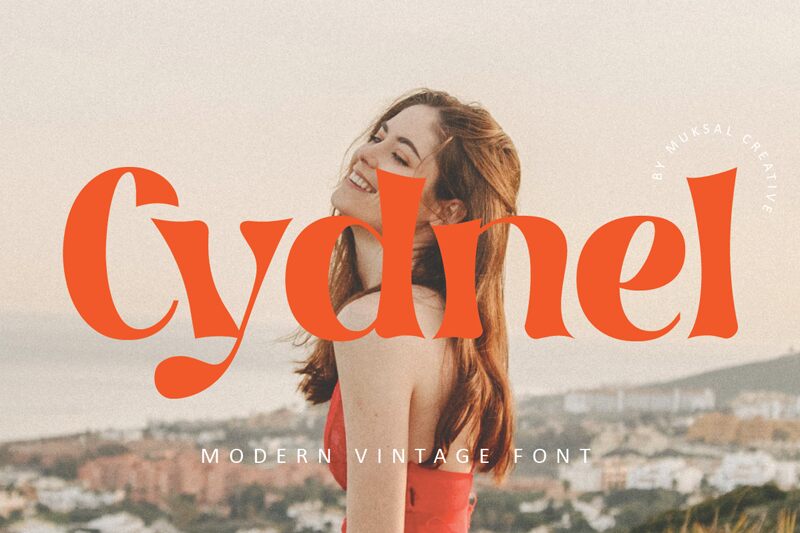
Cydnel font is a retro-inspired typeface created by Muksal Creative, available as a free font. Skillfully combining a sophisticated and modern vintage aesthetic with a contemporary twist, this font has an eye-catching design with a unique artistic flair. Its unique dynamic shapes provide every design with an expressive yet elegant vibe able to take all kinds of visual projects to the next level.
From personal to professional designs, the outcome will be truly impeccable if Cydnel is part of the process. This font type is ideal for use in logotype design, printed designs (posters, brochures, flyers, invitations), apparel designs, used in packaging design, and more. It will likewise make a great title on commercial or personal blogs, vlogs, and social media platforms.